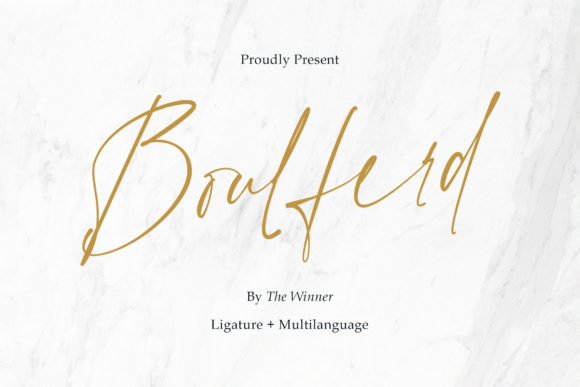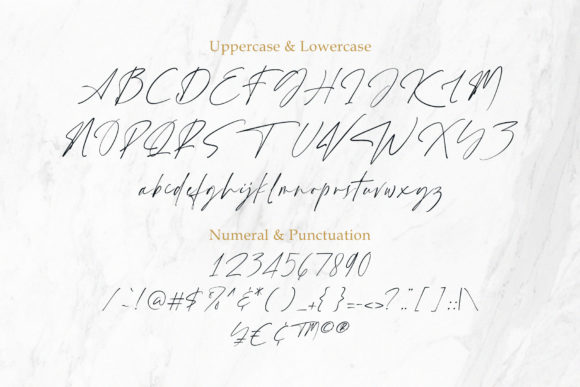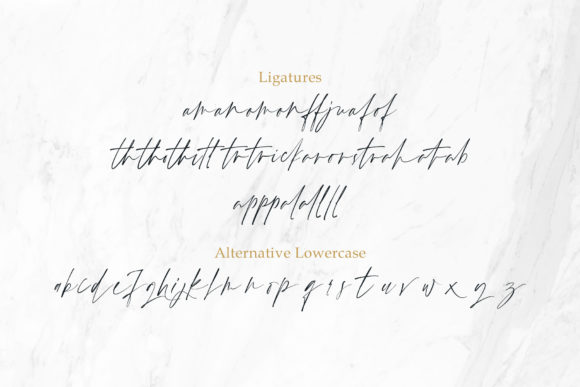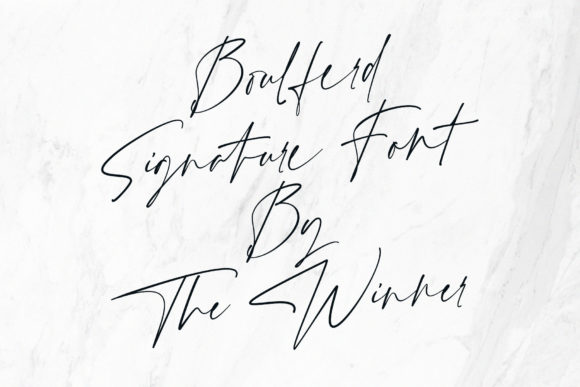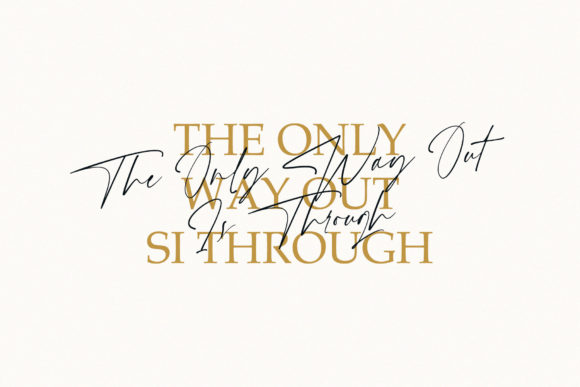
About Boulferd Font
Boulferd is a delicate caligraphic script font. It looks beautiful and stylish and it will most certainly elevate a wide range of creations.